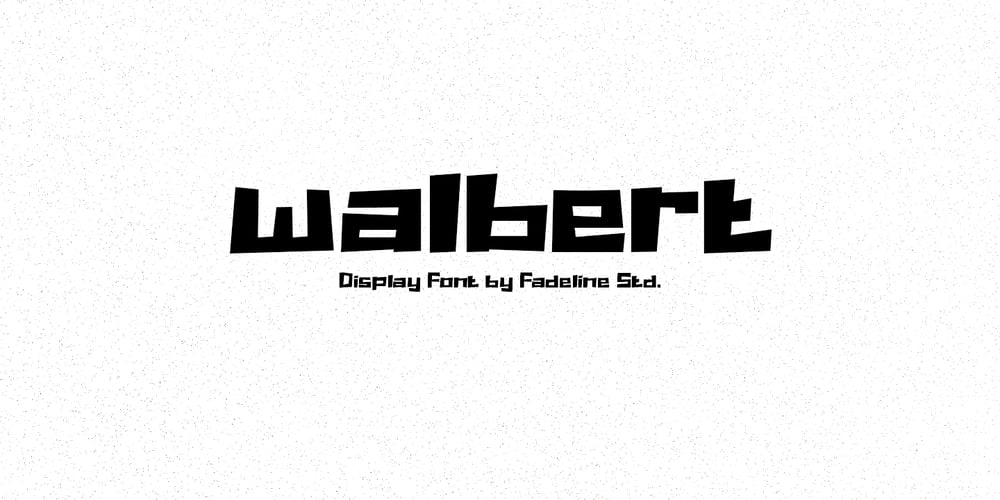
Walbert Font Family was designed by Juni Fadil Putra and published by FadeLine Studio. Walbert contains 1 styles and family package options. Walbert is a bold and bold new display font. This blocky font creates a brave and strong style. It is suitable to meet your various design needs that are currently trending.With a style like this, this font will be suitable in use for comic, logo’s, branding projects, homeware designs, product packaging, mugs, quotes, posters, shopping bags, logo’s, t-shirts, book covers, name card, invitation cards, greeting cards, and all your other lovely projects.